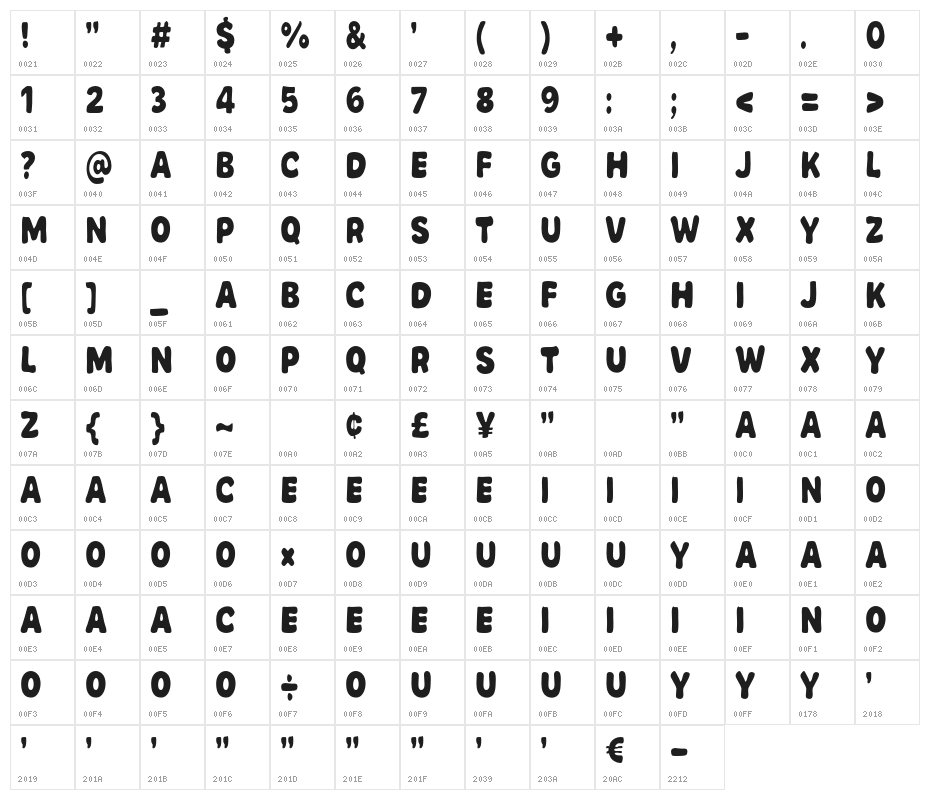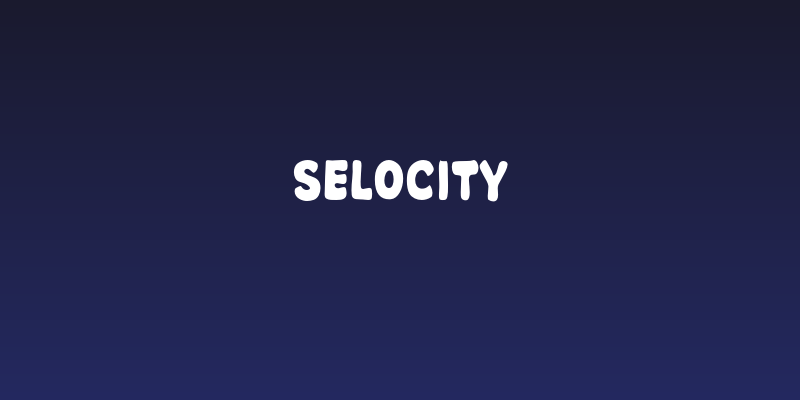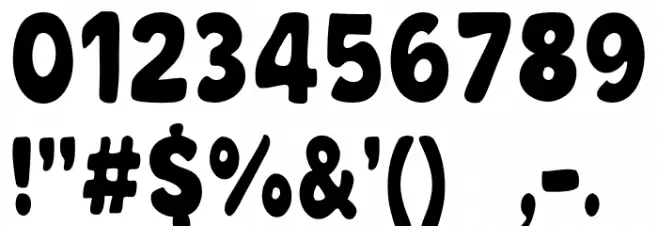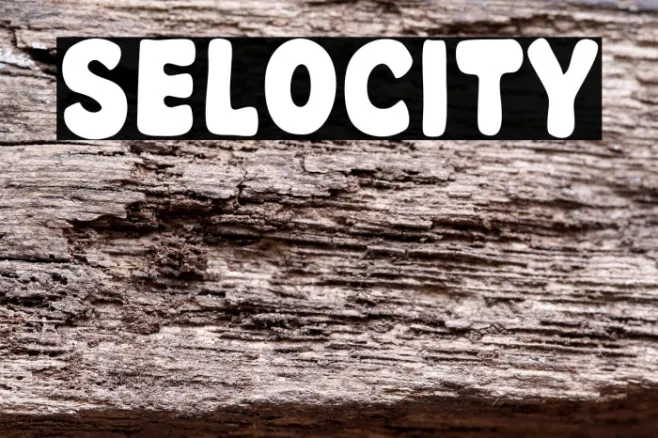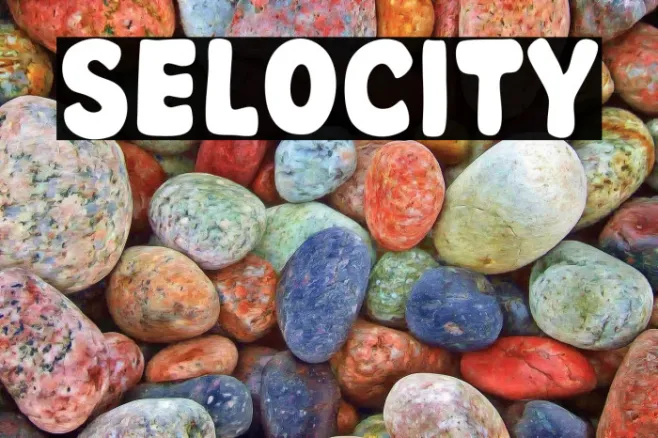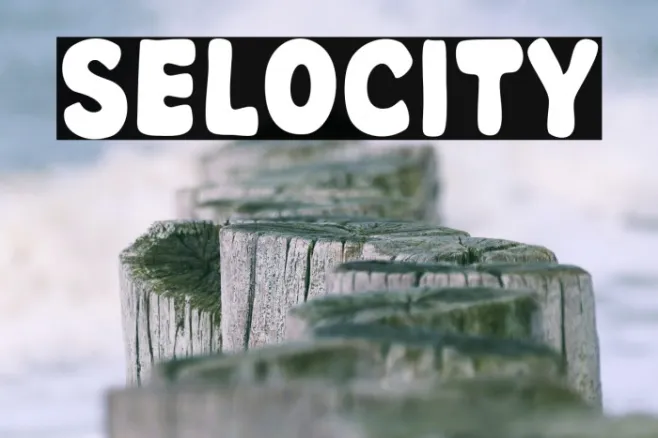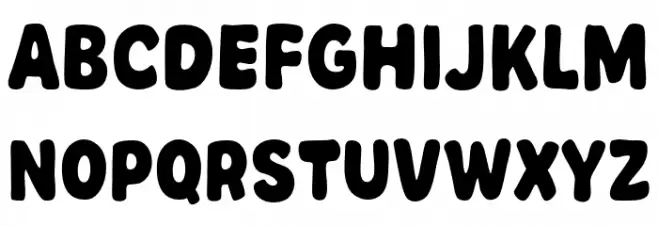
Selocity Font
Selocity Description
This font exhibits a bold and playful style with rounded edges and a slightly irregular form, giving it a friendly and approachable appearance. The characters are thick and substantial, making them highly visible and impactful. The uppercase and lowercase letters maintain a consistent weight, contributing to a cohesive look. The numbers and special characters follow the same design principles, ensuring uniformity across all elements. This font's design is reminiscent of hand-drawn or marker-style lettering, adding a touch of whimsy and creativity.
SELOCITY UPPERCASE
SELOCITY LOWERCASE
SELOCITY OTHER CHARS
| Overall Style | Playful, Creative |
| Proposed Projects | Ideal for children's books, playful branding, posters, and creative projects that require a fun and engaging typeface. |